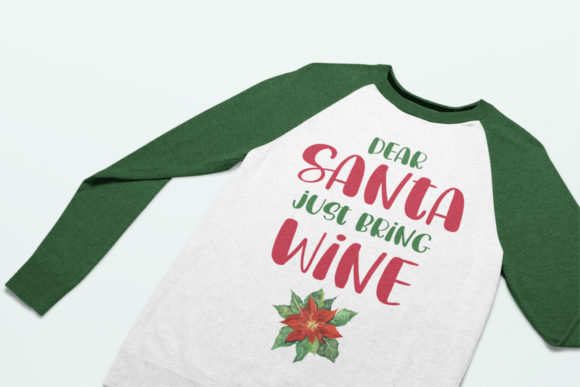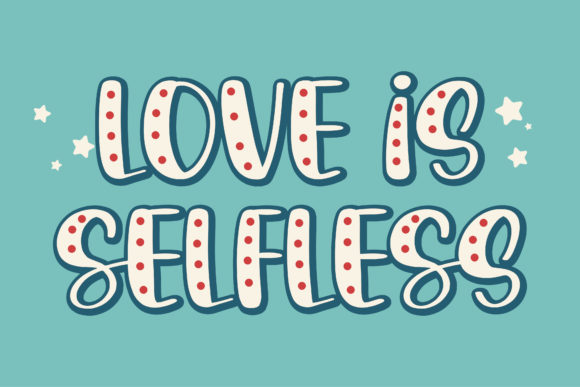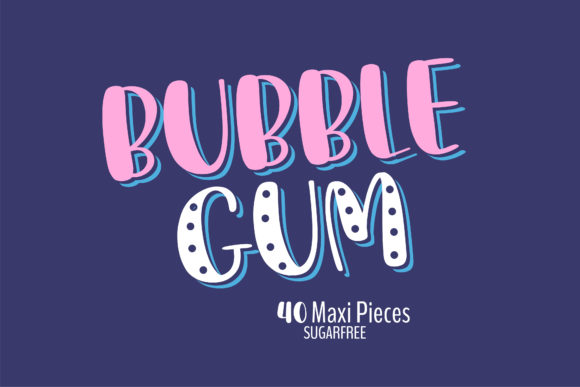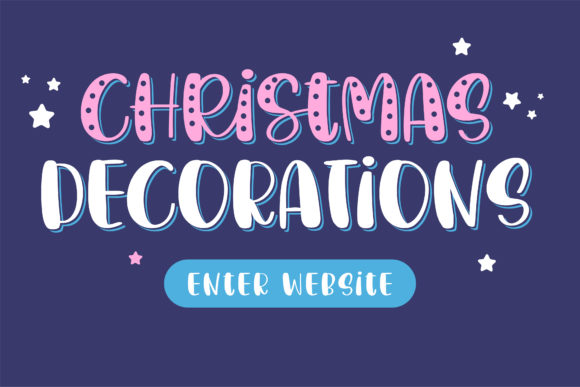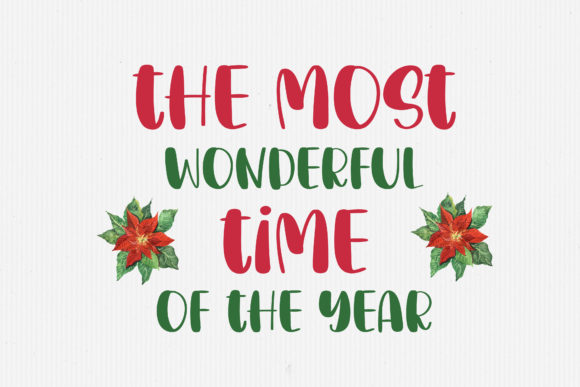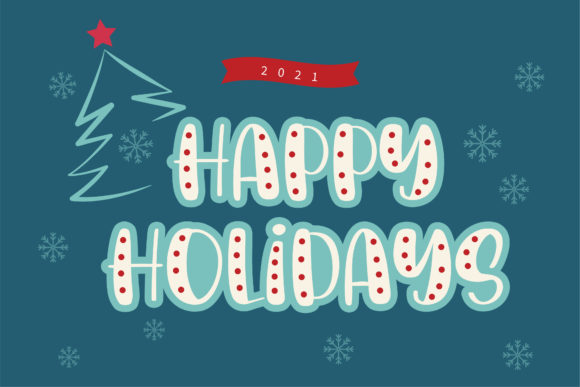
Introducing Christmas Decorations Font: The Perfect Addition to Your Holiday Designs
Are you looking for a font that captures the essence of the holiday season? Look no further than Christmas Decorations Font, an adorable handwritten font that’s perfect for adding a touch of festive flair to your designs. With its natural and unique style, this font is incredibly versatile and can be used for a wide range of projects, from holiday cards and invitations to festive packaging and decorations.
What Makes Christmas Decorations Font So Special?
Christmas Decorations Font is a one-of-a-kind handwritten font that’s been carefully crafted to evoke the magic and wonder of the holiday season. Its natural, imperfect style gives it a charming and endearing quality that’s sure to delight designers and crafters alike. Whether you’re creating holiday-themed crafts, decorations, or marketing materials, this font is sure to add a touch of personality and whimsy to your designs.
Endless Possibilities with Christmas Decorations Font
The only limit to what you can create with Christmas Decorations Font is your imagination! This font is incredibly versatile and can be used for a wide range of projects, including:
- Festive packaging and labels
- Christmas decorations and signs
- Holiday-themed crafts and DIY projects
- Marketing materials, such as flyers and brochures
Why Designers and Crafters Love Christmas Decorations Font
Designers and crafters love Christmas Decorations Font for its unique and charming style, which adds a touch of personality to any project. Here are just a few reasons why:
- Unique and eye-catching: Christmas Decorations Font is a one-of-a-kind font that’s sure to grab attention and make your designs stand out.
- Easy to read: Despite its handwritten style, Christmas Decorations Font is incredibly easy to read, making it perfect for use in a wide range of projects.
- Versatile: This font can be used for a wide range of projects, from holiday cards and invitations to festive packaging and decorations.
- Fun and playful: Christmas Decorations Font has a fun and playful style that’s perfect for adding a touch of whimsy to your designs.
Tips for Using Christmas Decorations Font in Your Designs
Here are a few tips for using Christmas Decorations Font in your designs:
Christmas Decorations Font is a unique and charming handwritten font that’s perfect for adding a touch of festive flair to your designs. With its natural and unique style, this font is incredibly versatile and can be used for a wide range of projects. Whether you’re a designer or crafter, Christmas Decorations Font is sure to become a go-to font in your holiday design arsenal.